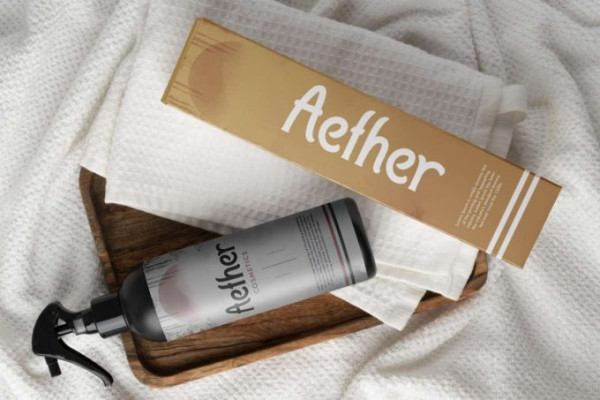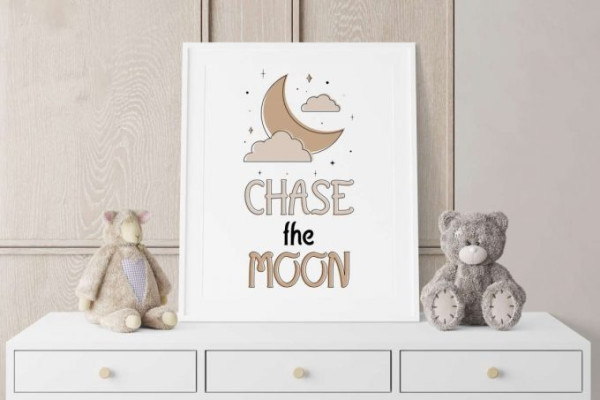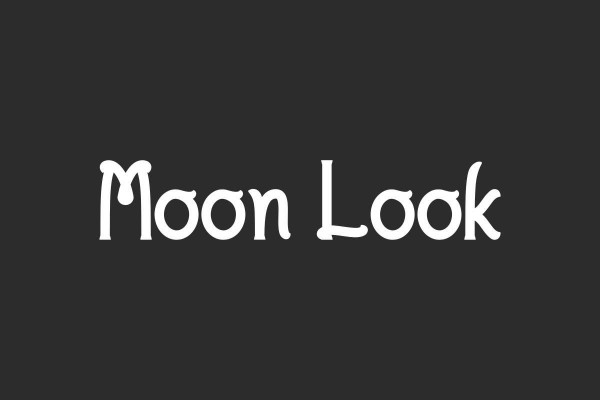
Moon Look Font
Moon Look Font is a playful display font inspired from popular kids mystical movies and games. This font will blow your mind when using bright and soft colors. Also you will still see the cool look of this font. It will be suitable for many industries, such as accessories, café, cosmetic, event, fashion, festival, gift wrapping, handicraft, magic show, movie, music, toy, etc.
Moon Look Font includes full set of Uppercase and Lowercase Basic Characters, also Numerals and Punctuation. This font would be perfect for those of you who need a modern stylish touch, such as brochure, custom design, gift box, invitation, label, magazine cover, poster, product packaging, quotes, screen printing, stationery, website, and more!